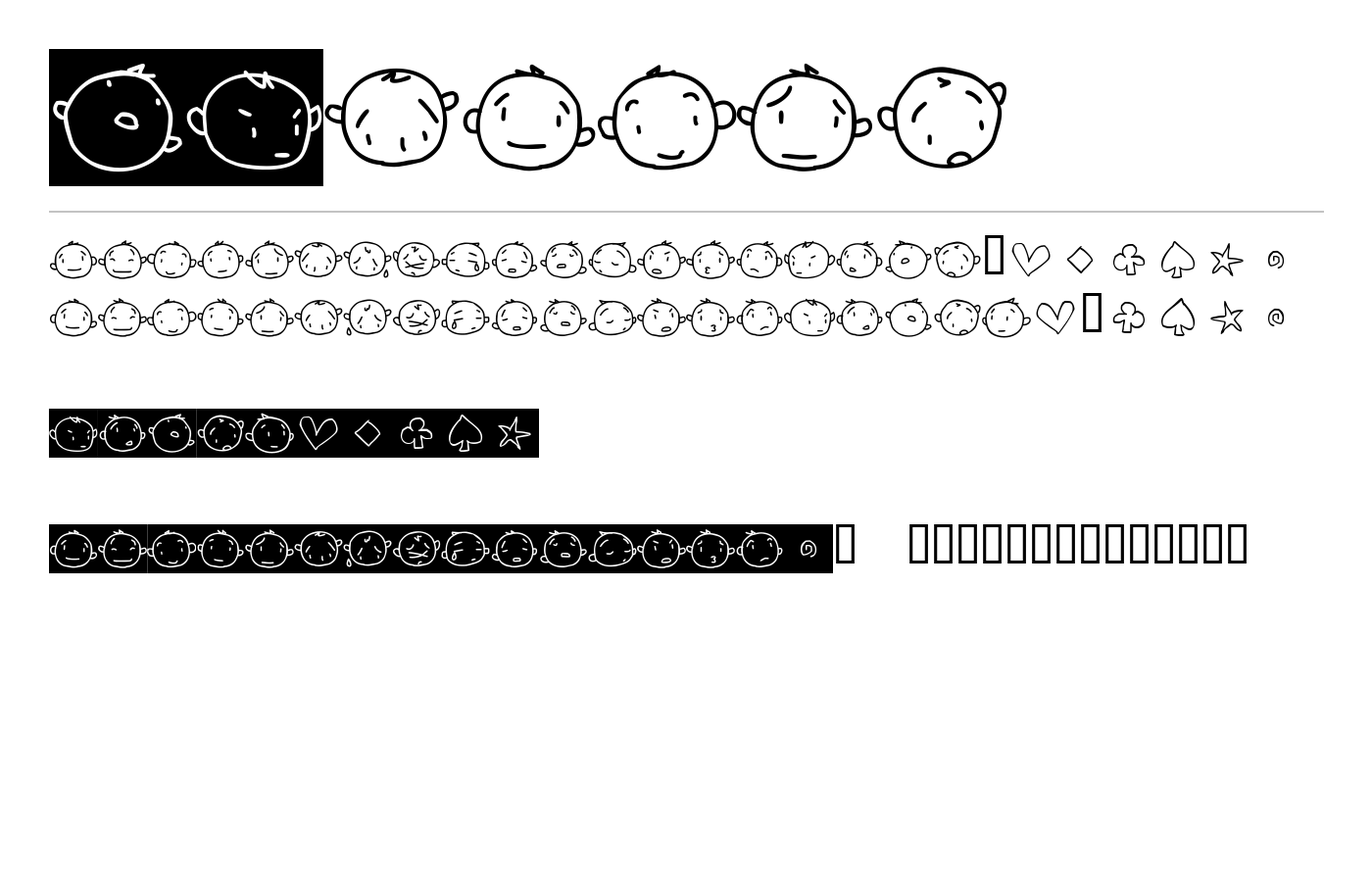
20faces Font is a playful, hand-drawn dingbat style font featuring a variety of unique expressive faces and simple symbols. Its informal and whimsical look makes it perfect for adding a fun, personal touch to projects like greeting cards, children’s materials, playful branding, and casual design work where personality and charm are key. This font works best in creative contexts where its hand-crafted, quirky style can stand out and bring warmth and character.
20faces Font
About 20faces Font